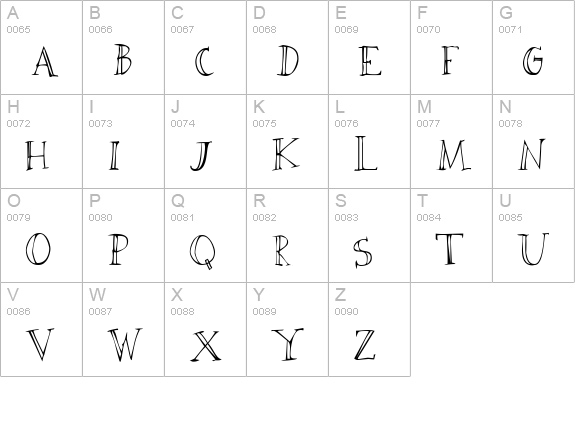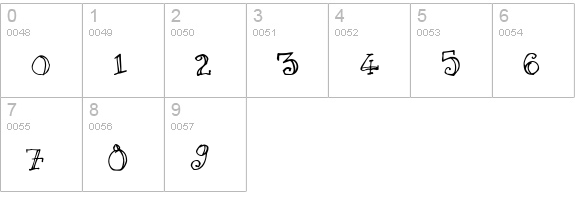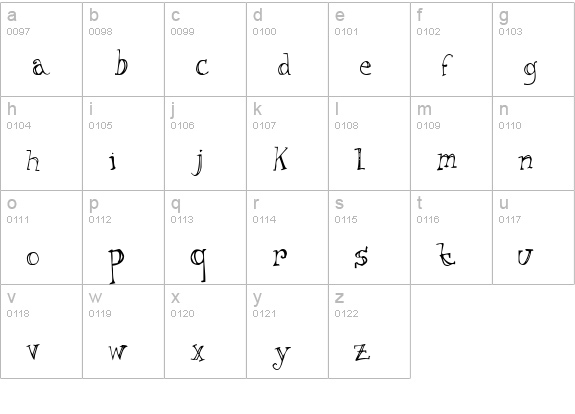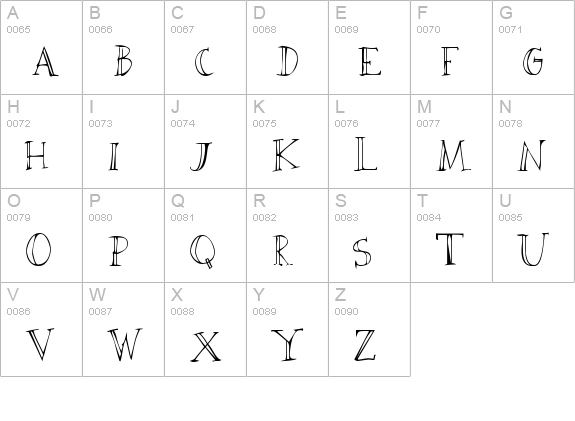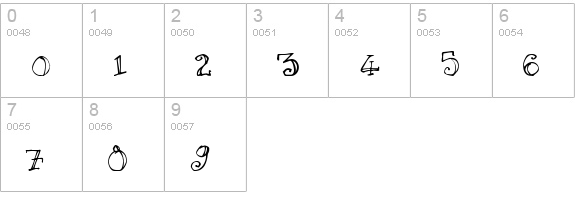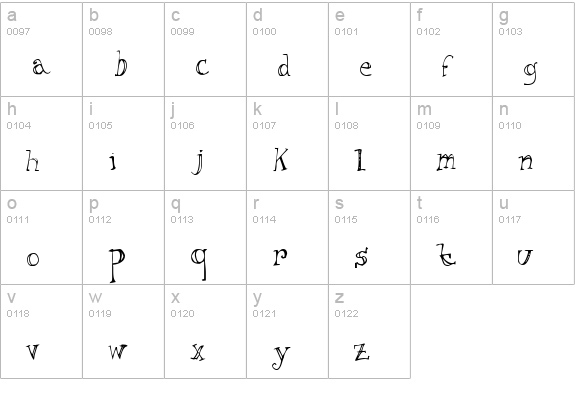
MANESCA Font Details
Introducing MANESCA, a captivating font that effortlessly combines elegance and modernity. With its sleek lines and stylish curves, this typeface is perfect for adding a touch of sophistication to any design project. MANESCA is not only visually appealing, but it also conveys a sense of versatility and adaptability. Its clean and legible characters make it suitable for a wide range of applications, from branding and packaging to editorial design and advertising. What sets MANESCA apart is its unique ability to seamlessly blend into various design styles. Whether you're aiming for a minimalist and contemporary look or a more sophisticated and classic aesthetic, this font has got you covered. And the best part? MANESCA is free! Yes, you read that right. This incredible font is freely available to download at FontsMarket.com. Now, you can elevate your design projects without breaking the bank. So why wait? Grab your copy of MANESCA today and unlock a world of possibilities. Let your creativity soar and bring your designs to life with this stunning font. Embrace its elegance, versatility, and affordability, and see your projects flourish like never before.